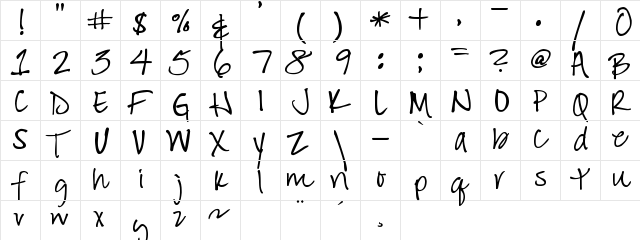
Hand of Hee Regular
Design Context for Hand of Hee Typeface
Hand of Hee flows with the natural rhythm of handwritten lettering, making it ideal for designs that call for warmth and personal expression.
Font Pairing: Combine Hand of Hee with a simple geometric sans for maximum contrast — the tension between flowing curves and clean structure is a classic typographic pairing.
Pro Tip: Pair Hand of Hee with a clean sans-serif for supporting text. The contrast between fluid script and geometric structure creates an elegant typographic hierarchy.